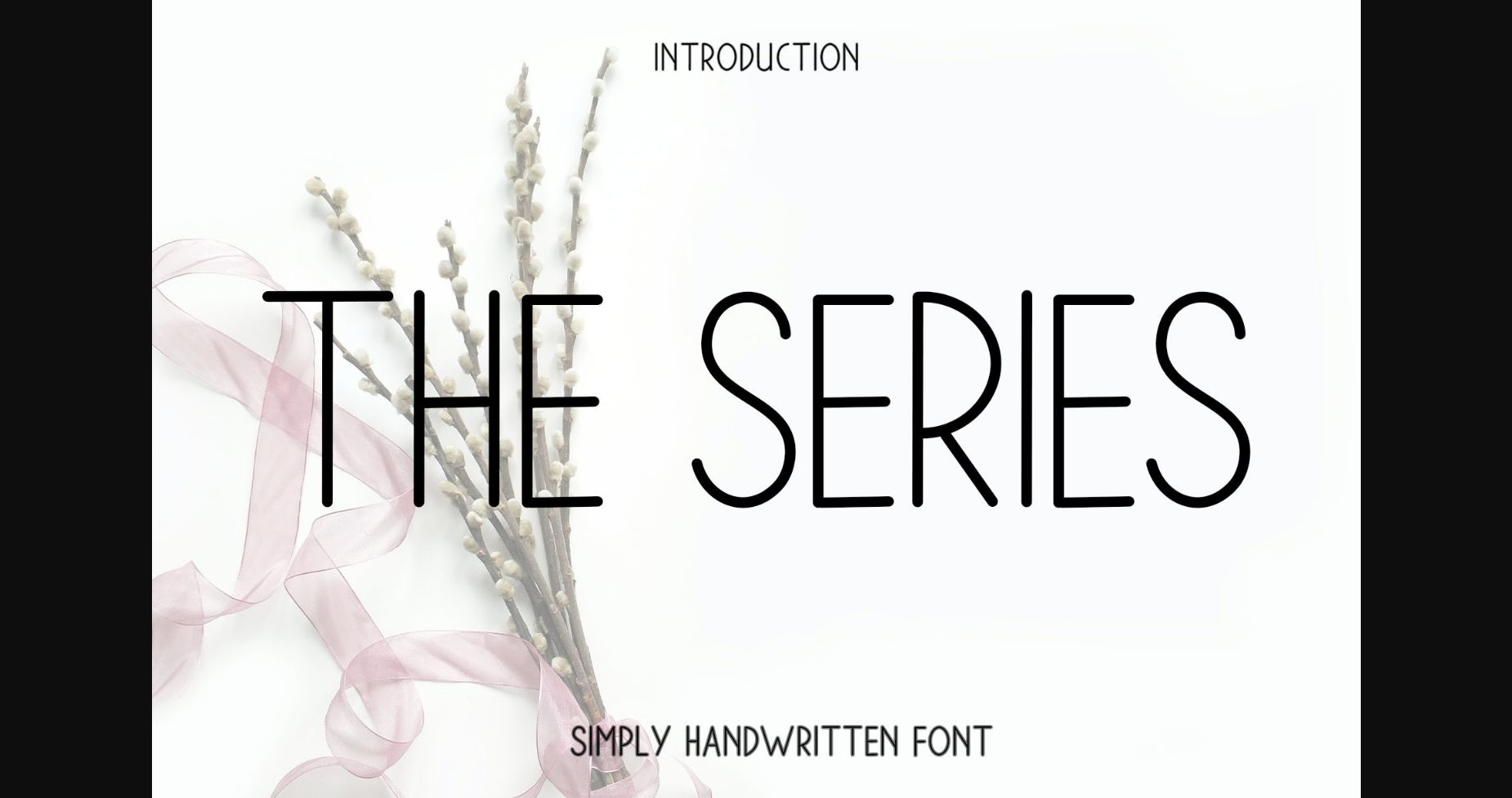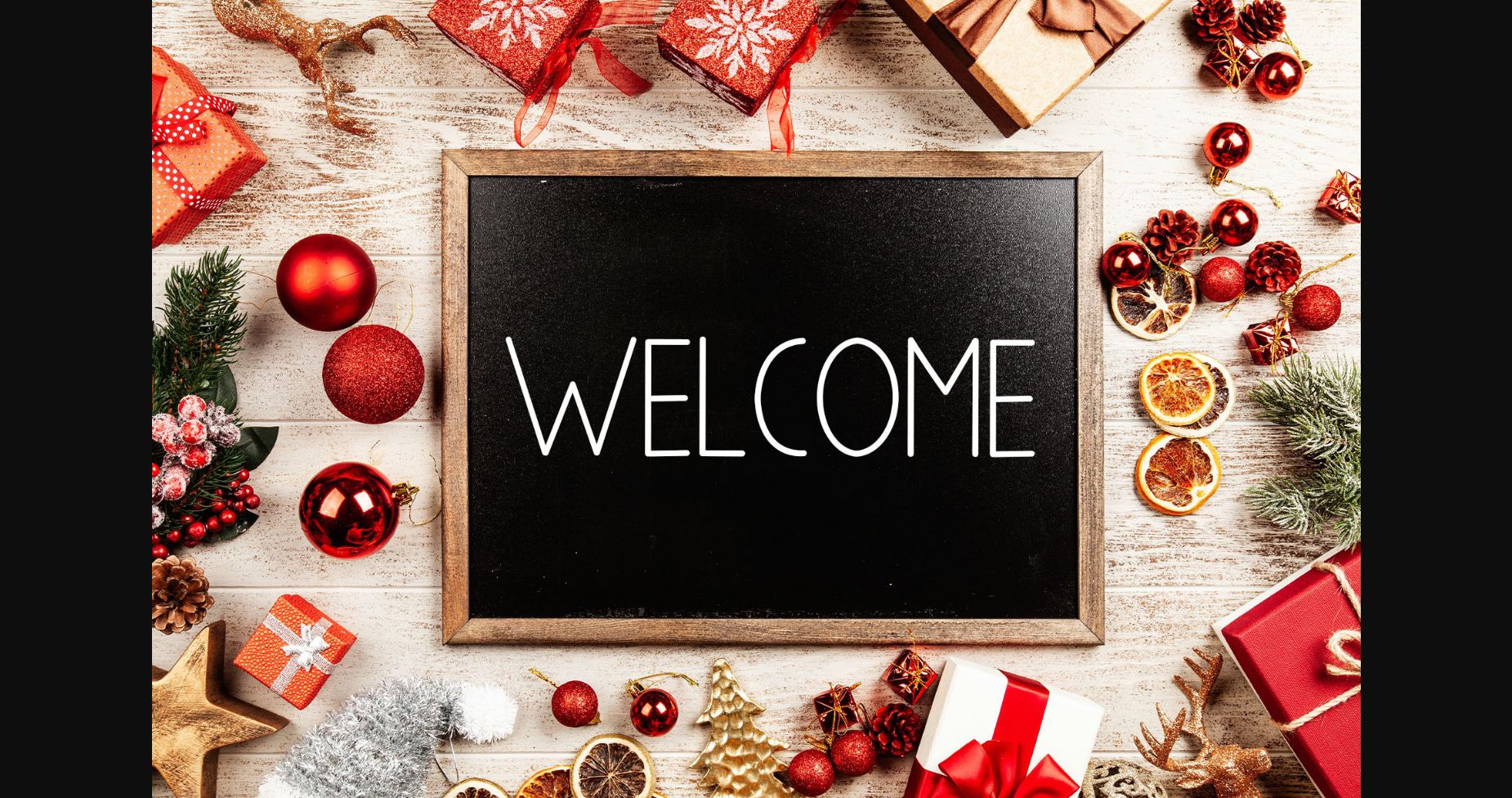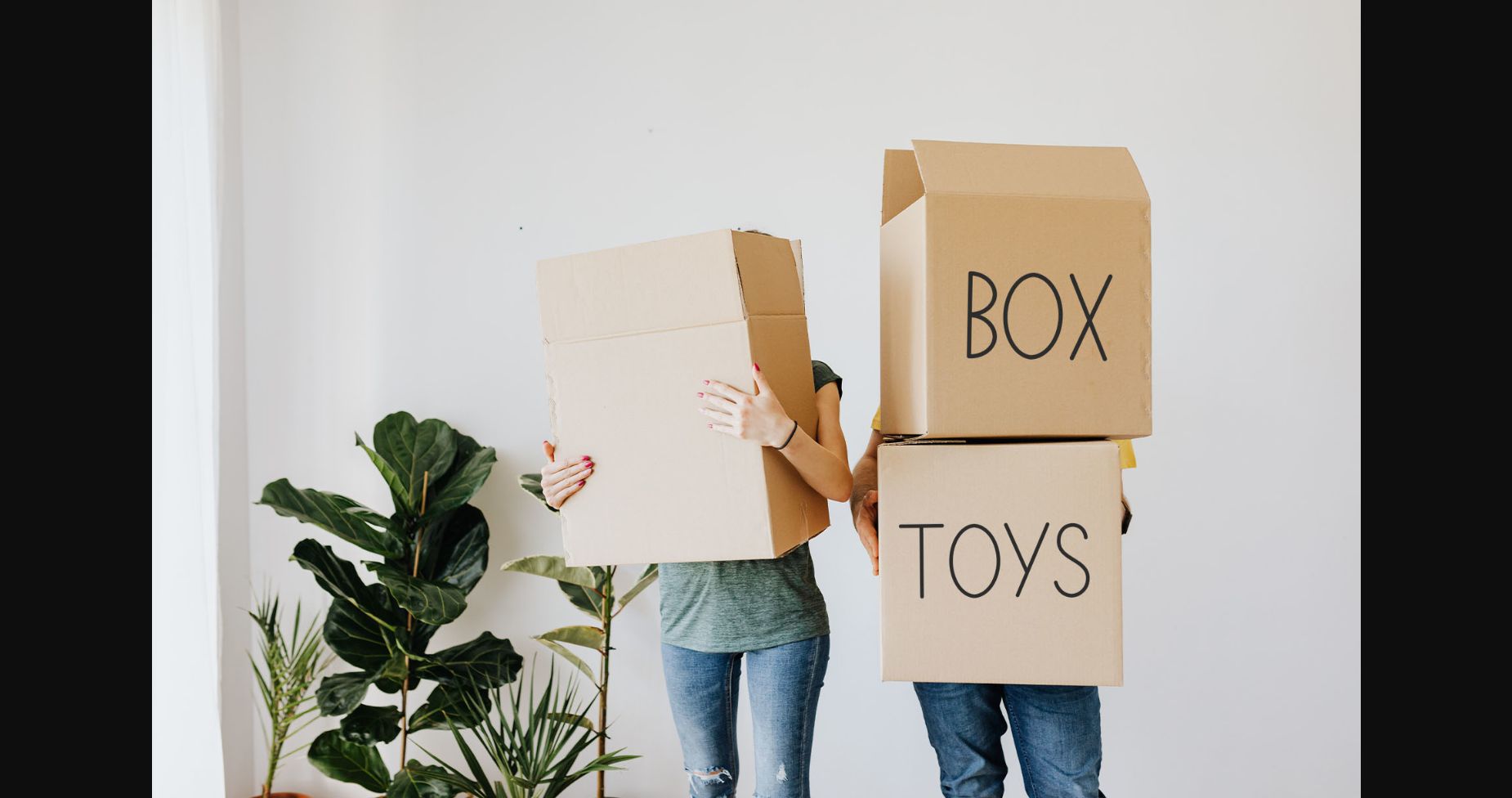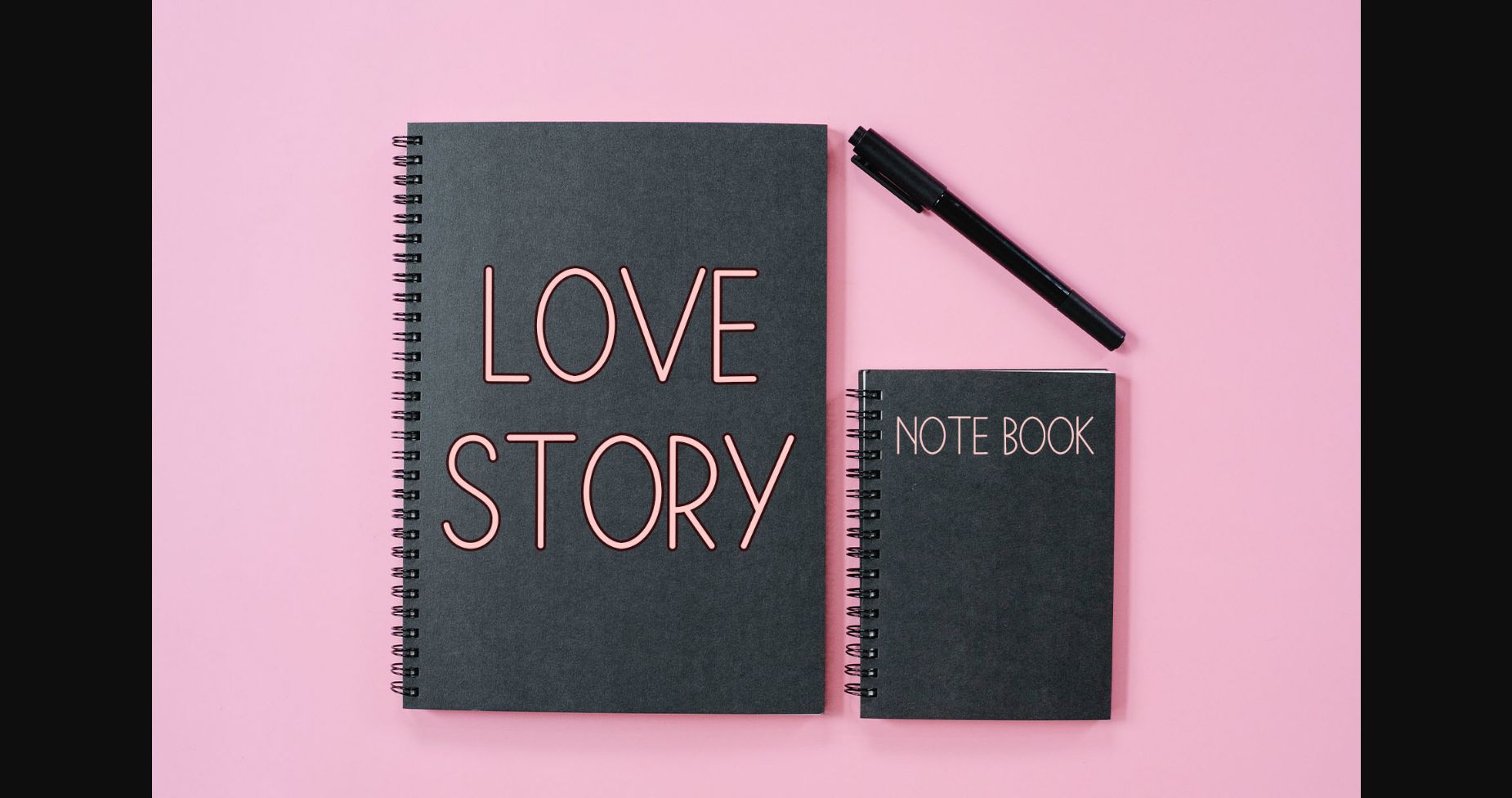
About The Series Font
The Series is a minimal and neat sans serif font. It can easily be matched to an incredibly large set of projects, so add it to your creative ideas and notice how it makes them stand out!